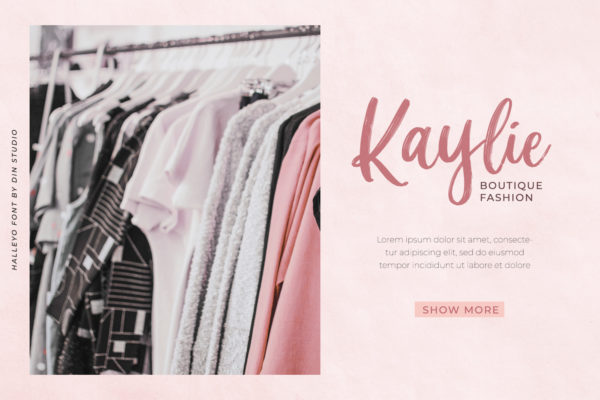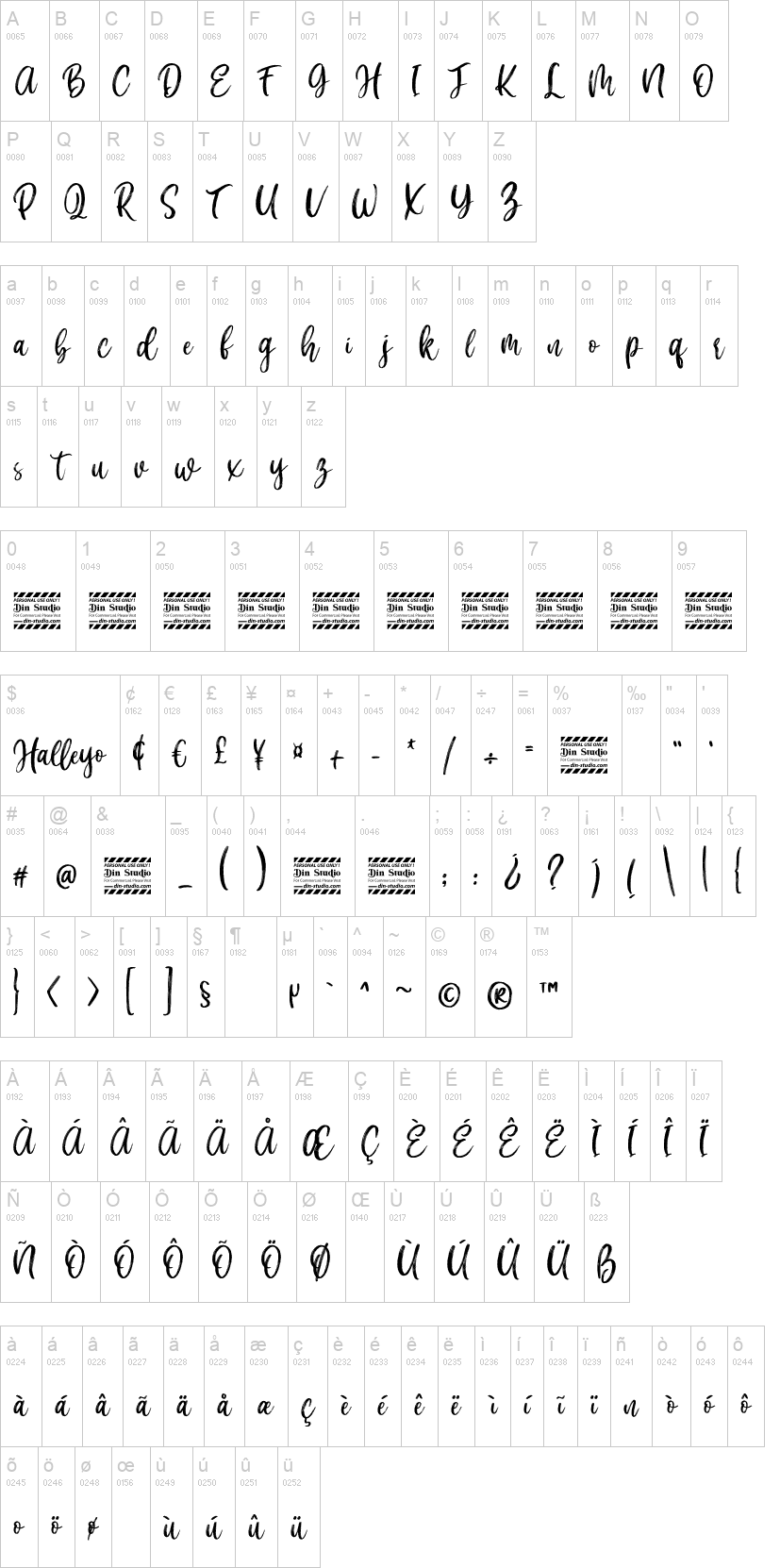
Halleyo is a brush handwritten font. With a classy and natural handwritten style, it brings a classy and beautiful typeface. Halleyo is best used for branding, logotype, and quotes.